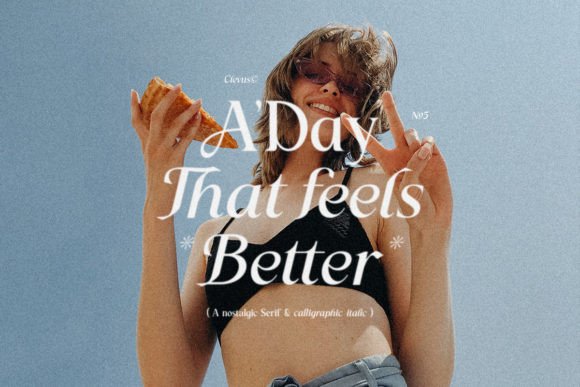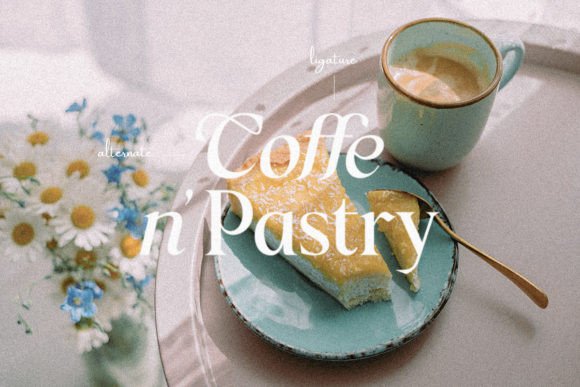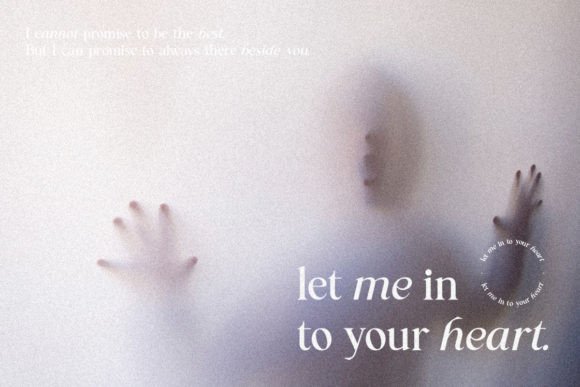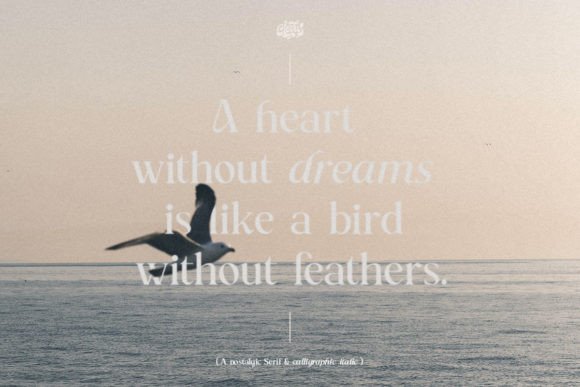
A Day That Feels Better Font: Nostalgic Serif & Calligraphy Typography
About the A Day That Feels Better Font
Unleash your creativity with A Day That Feels Better Font, a versatile font perfect for a wide range of applications. A Day That Feels Better is a nostalgic and modern font. Its uncommon calligraphic design will add an elegant touch to your projects. Add it to your most innovative ideas and observe how it makes them stand out! This font is PUA encoded, which means you can easily access all characters and ligatures!
This font’s elegant yet nostalgic feel makes it ideal for branding projects aiming for a sophisticated, yet approachable aesthetic, particularly logos, short headlines, and packaging design where its calligraphic detail can shine. It’s also well-suited for invitations and short-form editorial pieces. However, its intricate design makes it less suitable for body text or UI elements where readability is paramount; long paragraphs will be visually overwhelming.
Consider pairing “A Day That Feels Better” with a clean sans-serif like Open Sans for body text to maintain readability, or a geometric sans-serif like Futura for a more modern, balanced feel. For a contrasting yet harmonious pairing, a classic serif like Garamond could add a layer of timeless sophistication.
The overall personality is sophisticated and warm, conveying a sense of nostalgia with a modern twist. Its calligraphic elements suggest a handcrafted, personal touch, making it appropriate for brands emphasizing quality, craftsmanship, or a heritage feel.